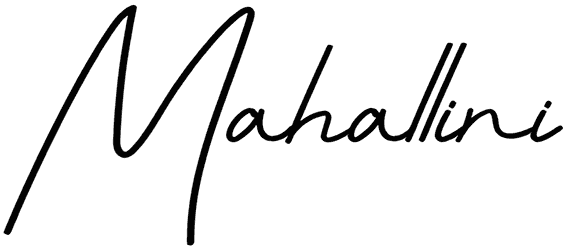
Mahallini Font
As a captivating handwriting font, Mahallini perfectly encapsulates the spirit of originality and creativity. It’s not easy to read, but it will add a unique flair to your posters, invitations, social media posts, and ot…
As a captivating handwriting font, Mahallini perfectly encapsulates the spirit of originality and creativity. It’s not easy to read, but it will add a unique flair to your posters, invitations, social media posts, and other creative endeavors.